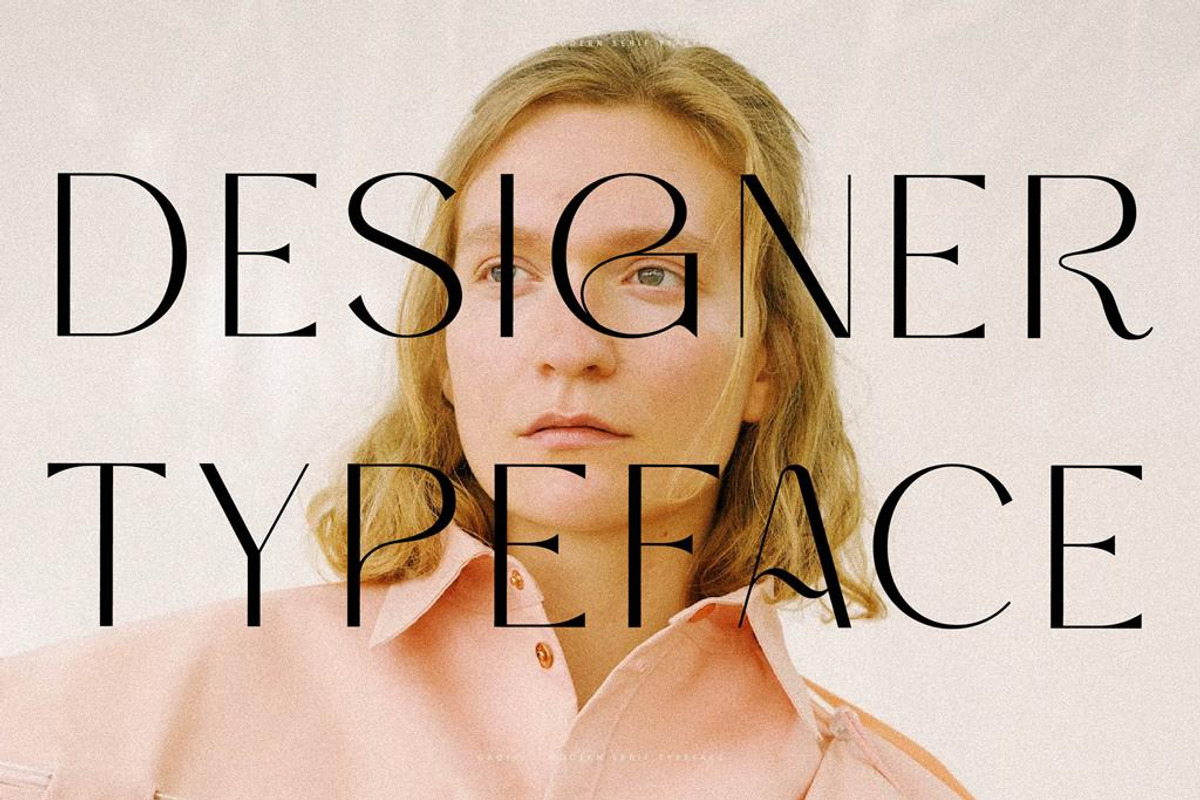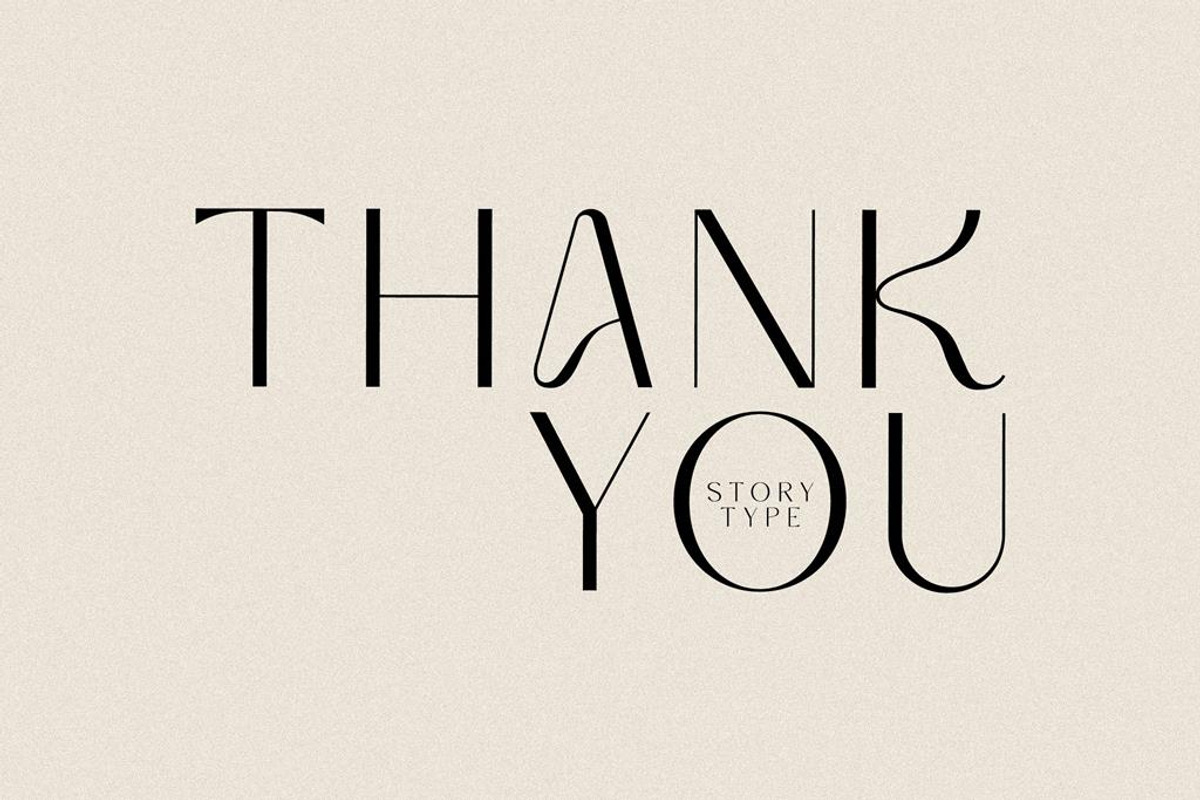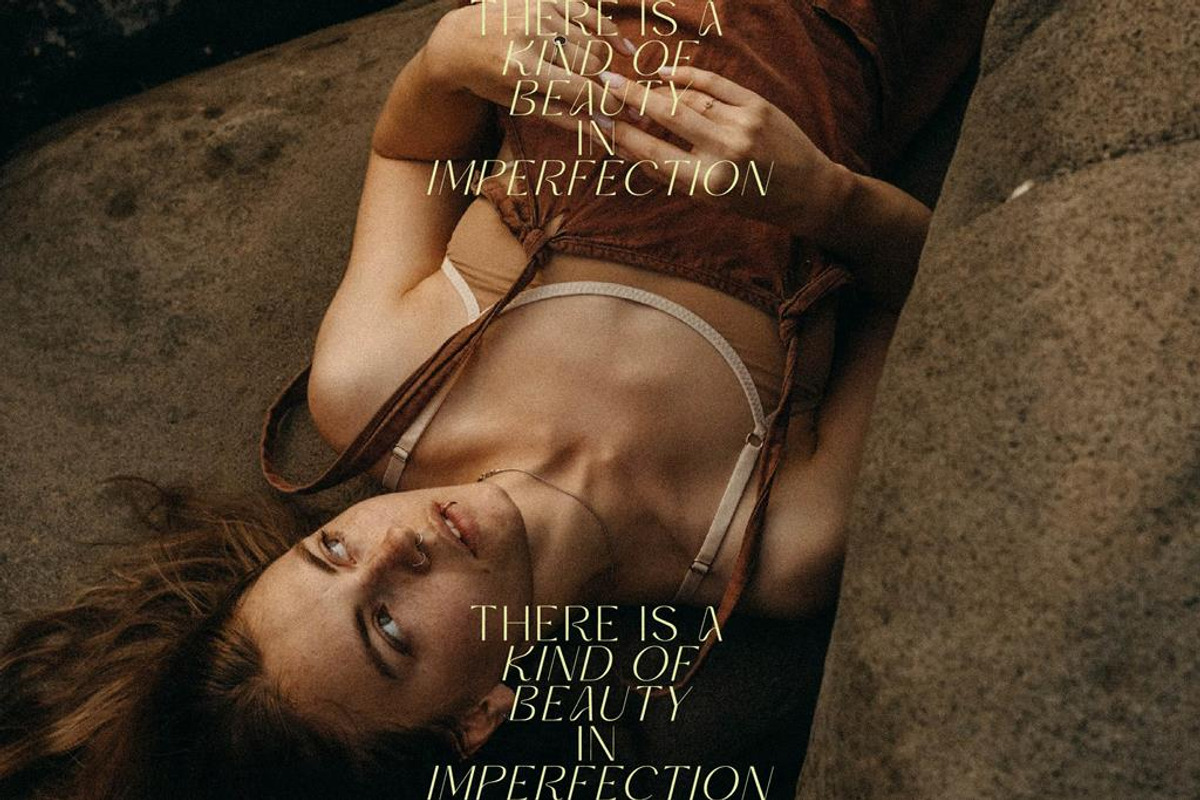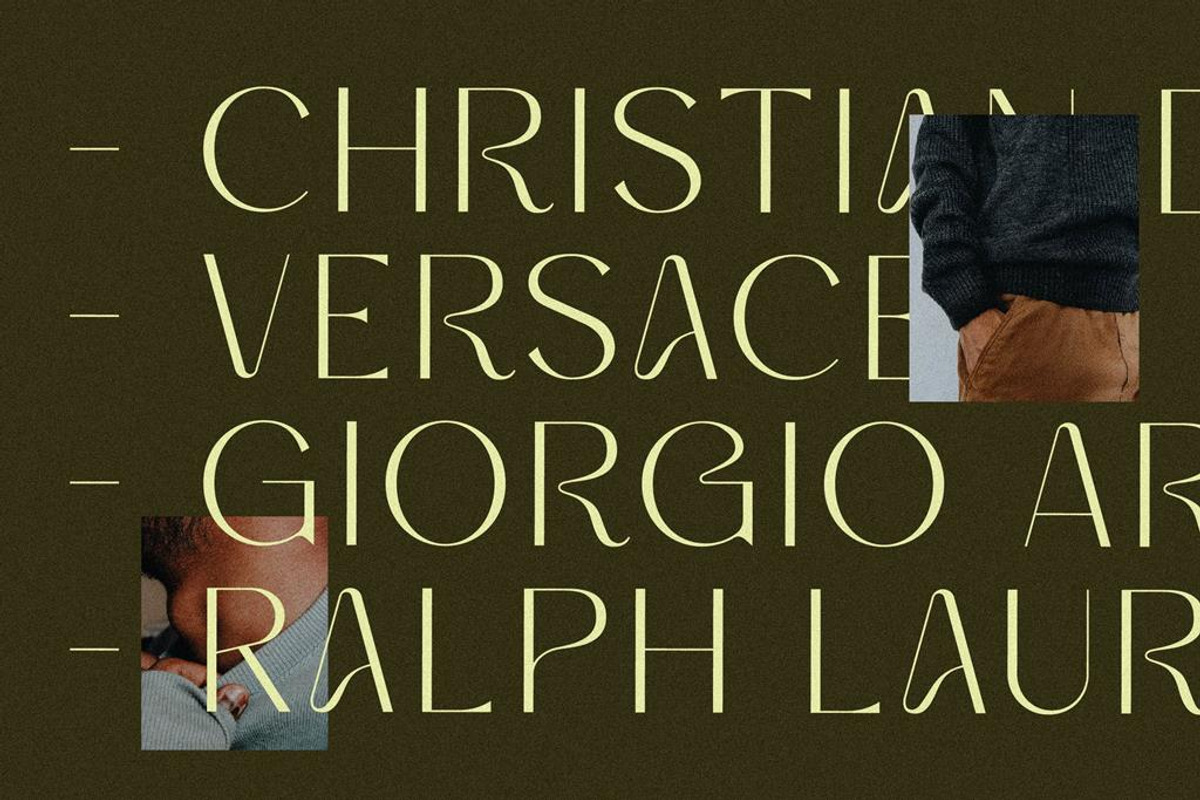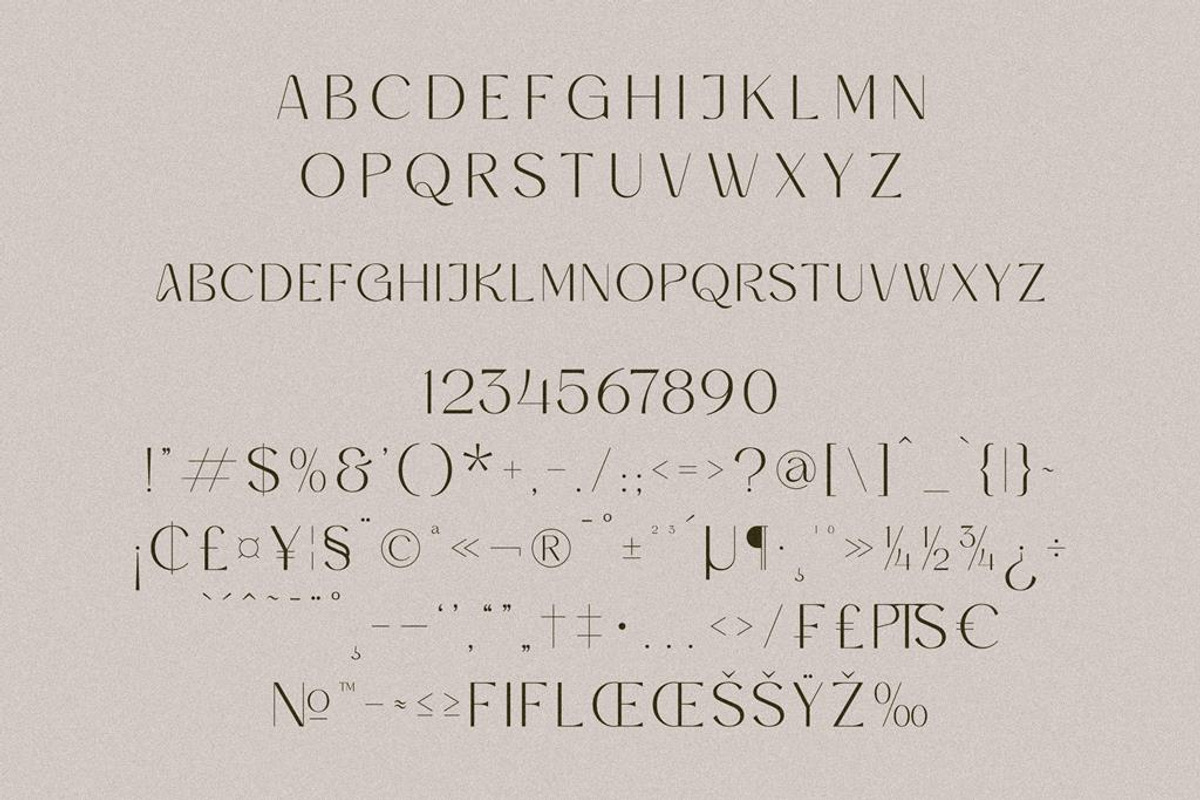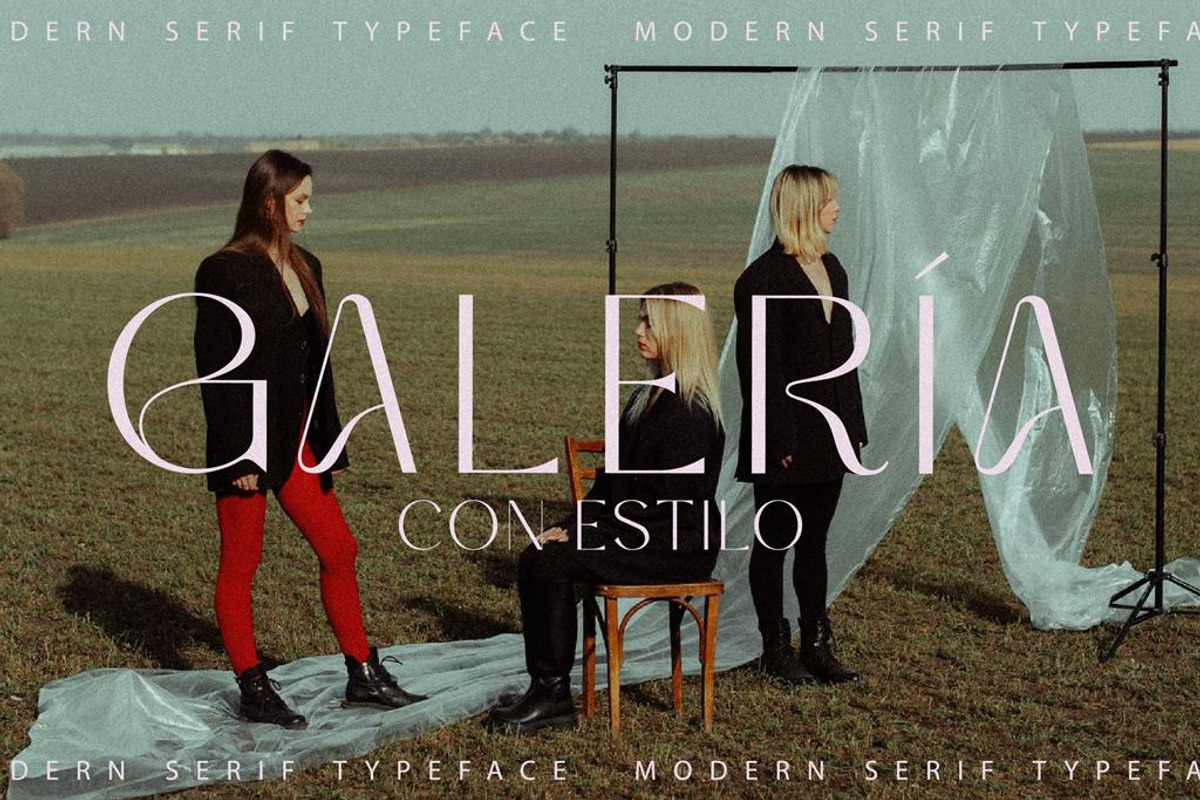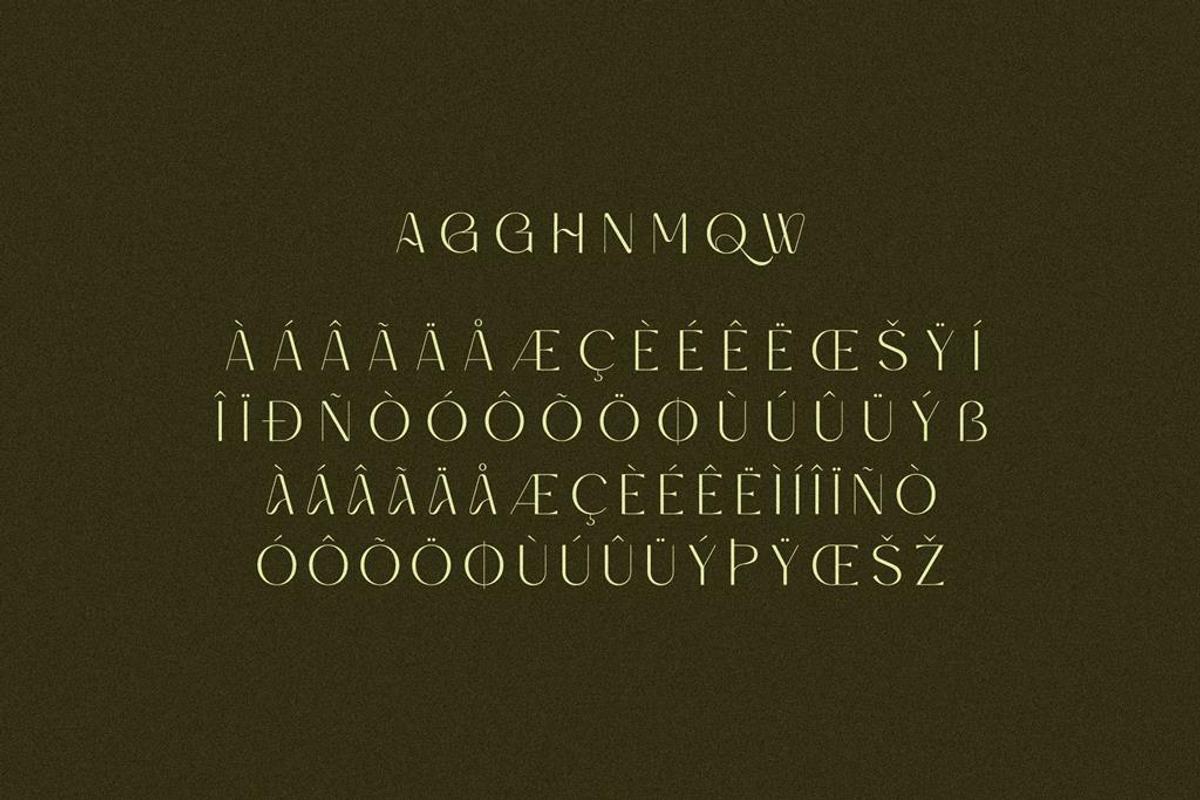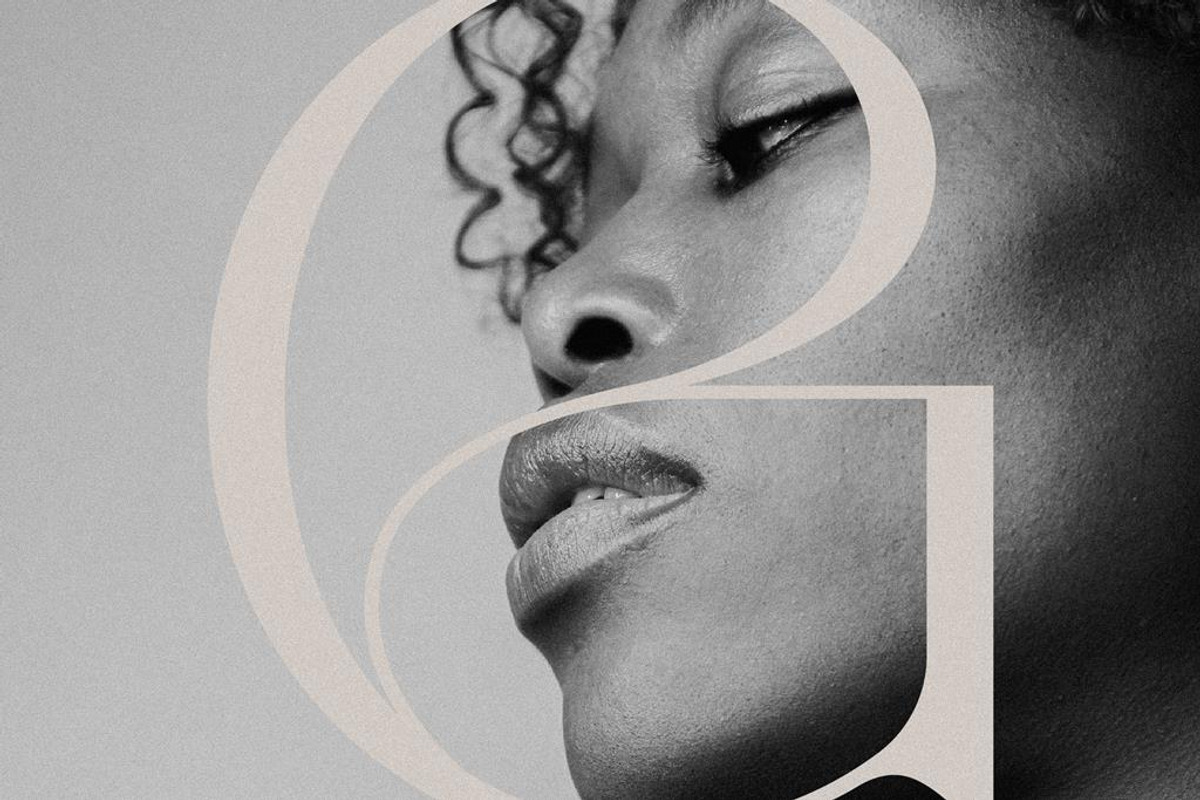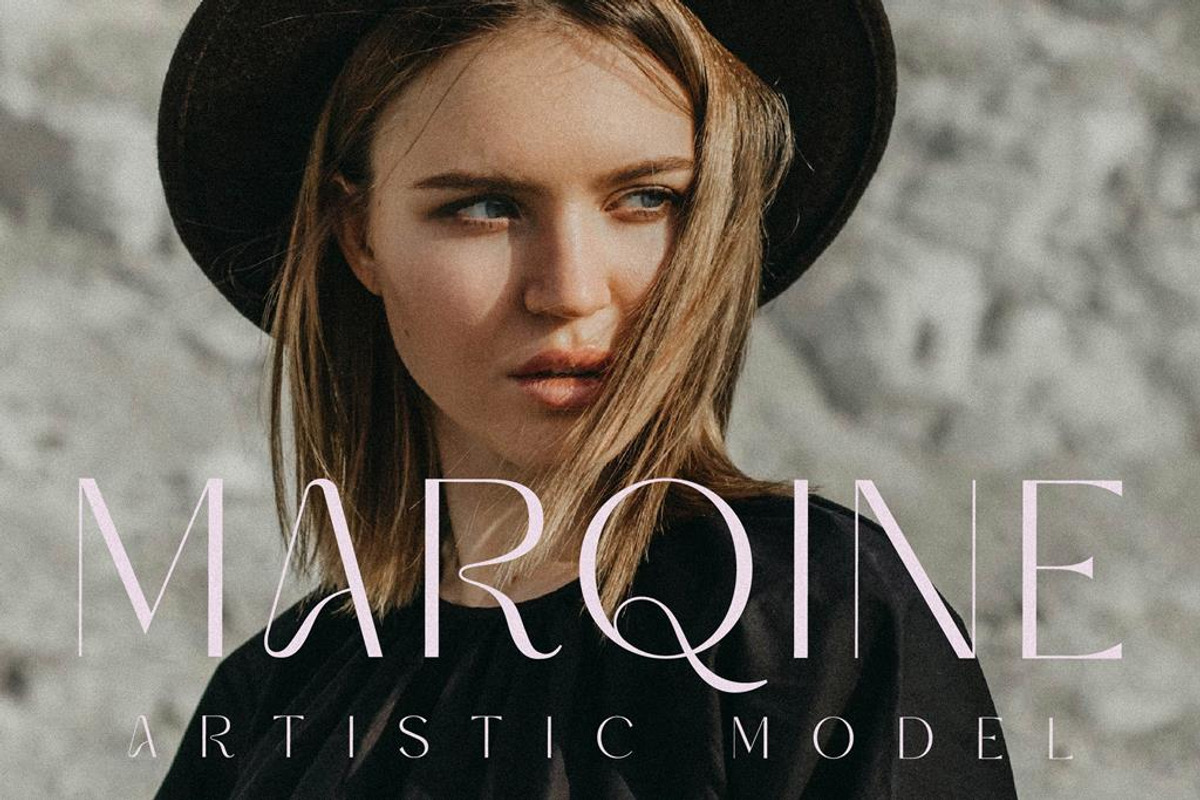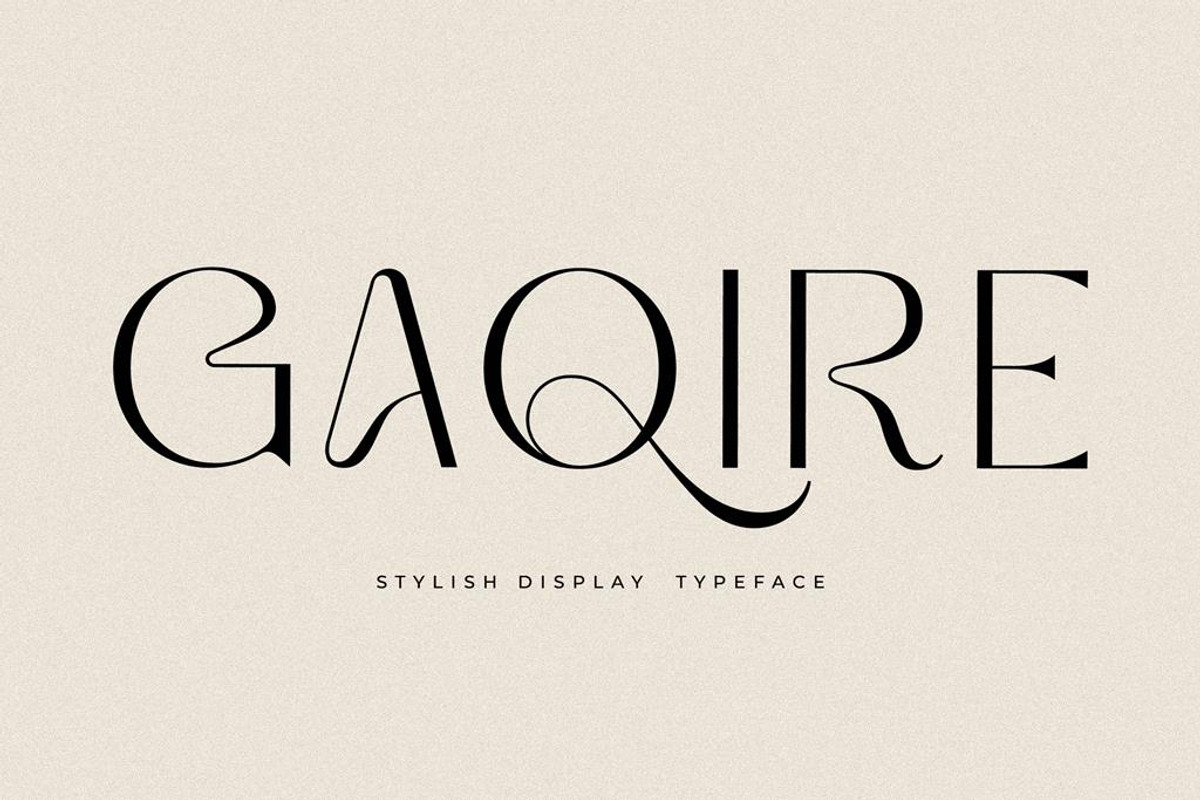
Gaqire Stylish Display Typeface
Proudly present GAQIRE Typeface , created by Storytype, A serif modern and classic typeface that has own unique style & modern look. This typeface is perfect for an elegant & luxury logo, book or movie title design, fashion brand, magazine, clothes, lettering, quotes, and so much more.